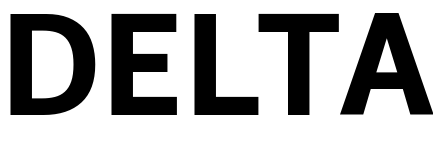
Delta Font
AirlineDelta Air Lines is a major American airline headquartered in Atlanta, Georgia. It is one of the largest airlines in the world, serving more than 325 destinations in 52 countries on six continents. Since 1929, the Delta logo has undergone numerous redesigns, with a total of 18 revisions as of 2012.
The current logo, which debuted in 2007, combines an all-caps sans serif logotype with a three-dimensional widget in solid red. The typeface is extremely similar to Dino dos Santos's Priva Four. The font is a commercial one and you can view more details about it here.